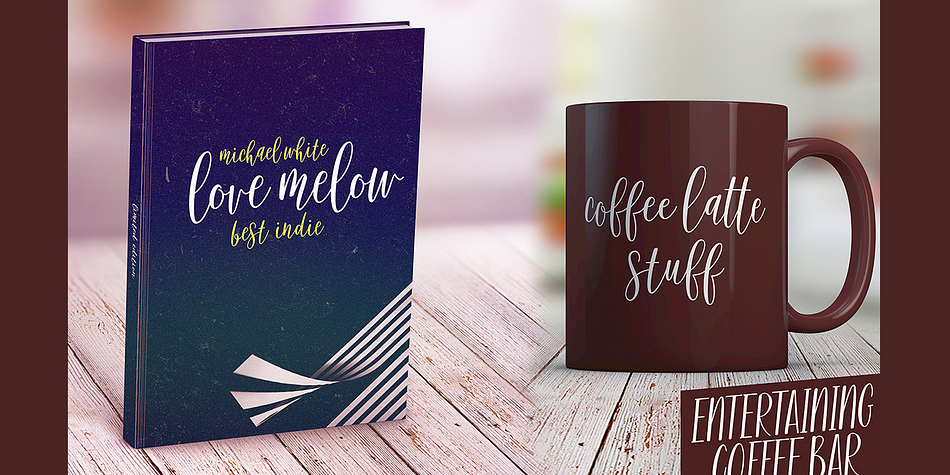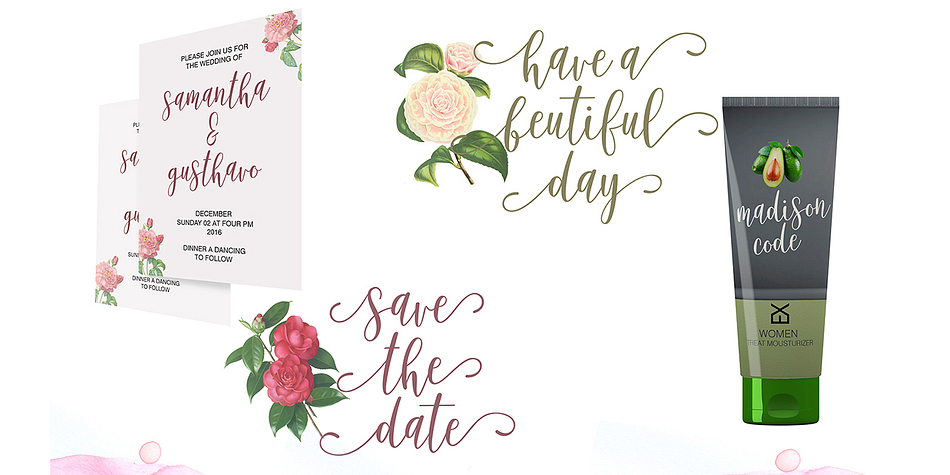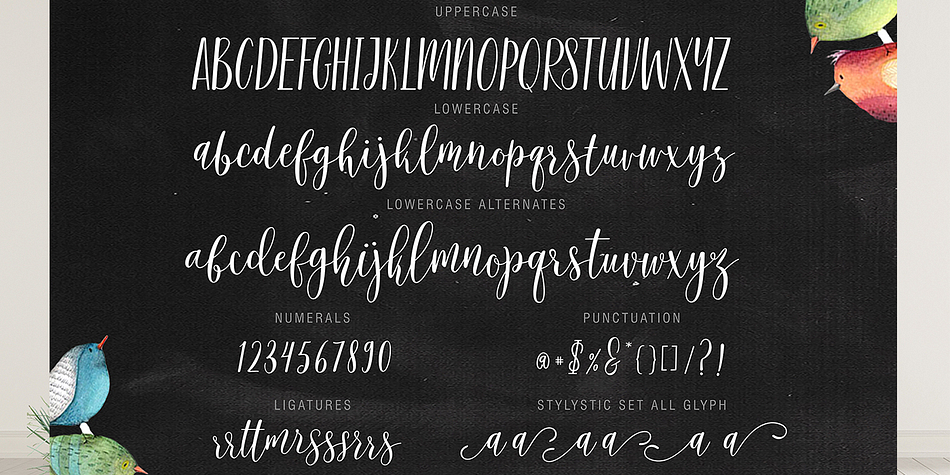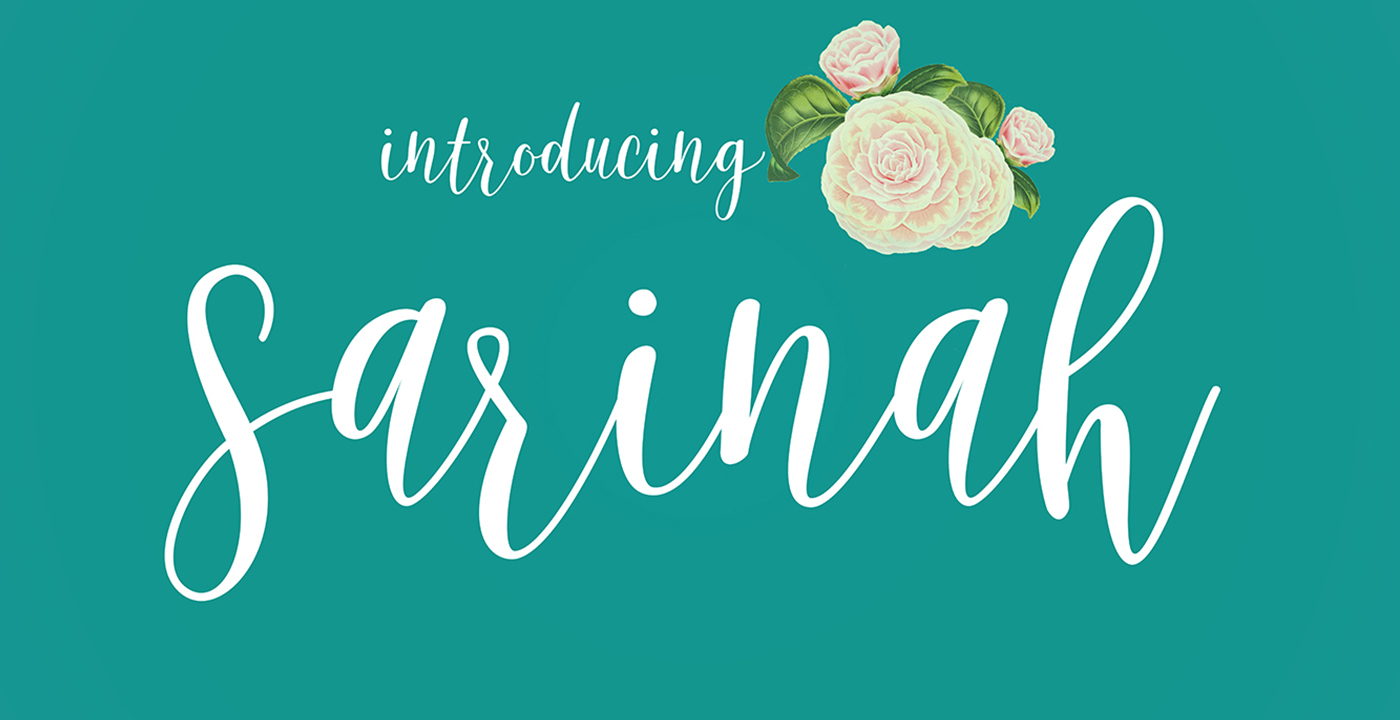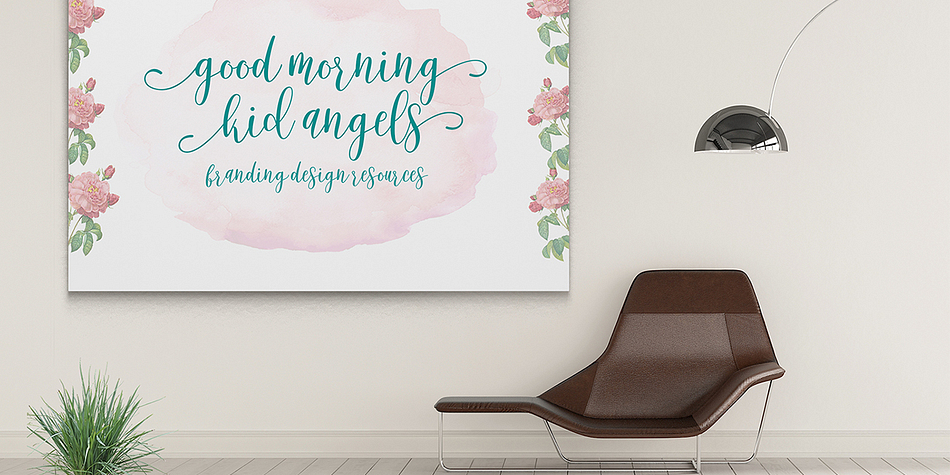
Sarinah Script is a script and modern calligraphy font published by Genesislab.
Introducing the latest script style font from Genesislab: Sarinah Script. It has the kind of modern hand scratches and bouncy glyphs.
This font can be used easily because it has many features and contains a complete set of lower and uppercase letters, assorted punctuation, numbers, and multilingual support. Sarinah also contains several ligatures and alternate stylistic sets for those of you who have software that is able to work OpenType (Photoshop / Illustrator / InDesign).
Sarinah Script is suitable to use for market design developed at this time. This font is trendy, natural and gentle. With this font you can take advantage of the opportunity in every moment. It is a wonderful way to highlight a celebration. This font lends itself to be used for beautiful occasions like weddings, parties, graduations, birthdays, gatherings, etc.